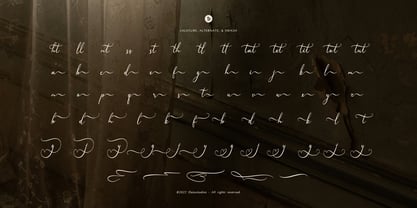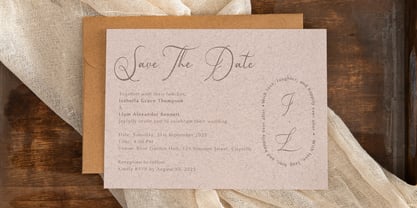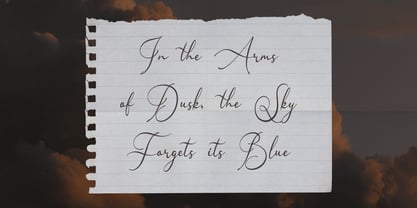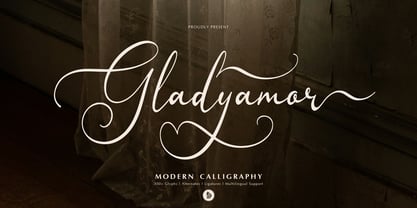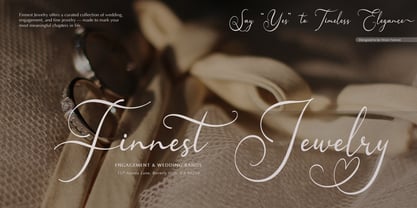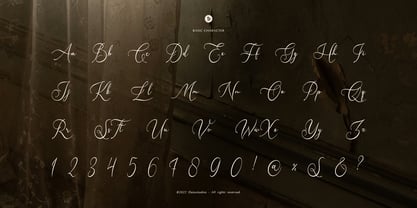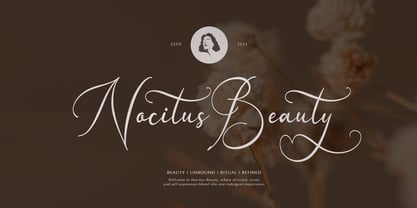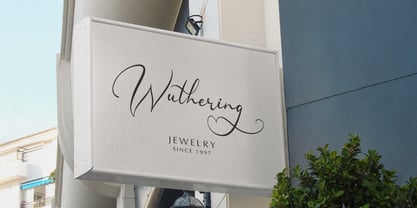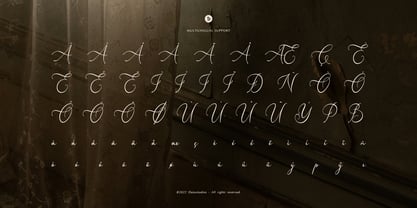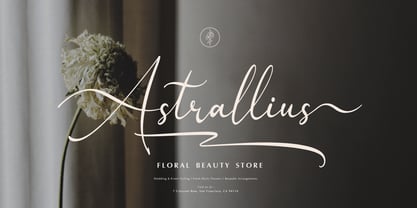
Gladyamor
The Gladyamor Font Family was designed by Dede Nugraha and published by Denustudio. Gladyamor contains 2 styles and family package options. More about this family
Gladyamor | Modern Calligraphy, from Denustudios, suitable for any projects such as: logos, branding projects, homeware designs, product packaging, mugs, quotes, posters, shopping bags, t-shirts, book covers, name card, invitation cards, greeting cards, label, photography, watermark, special events, and all your other lovely projects that need Modern Calligraphy a taste.
• Regular and Italic
• Standard glyphs
• Alternate and Ligature
• Fonts include multilingual support